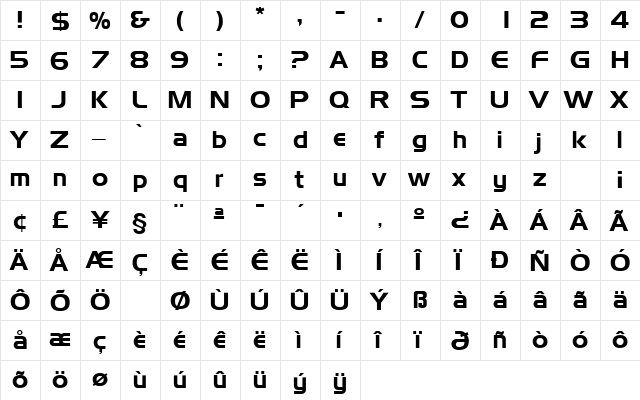
Niamey Regular
Design Context for Niamey Typeface
Niamey takes a measured approach to typography — its balanced proportions and neutral character make it a reliable workhorse for both digital and print work.